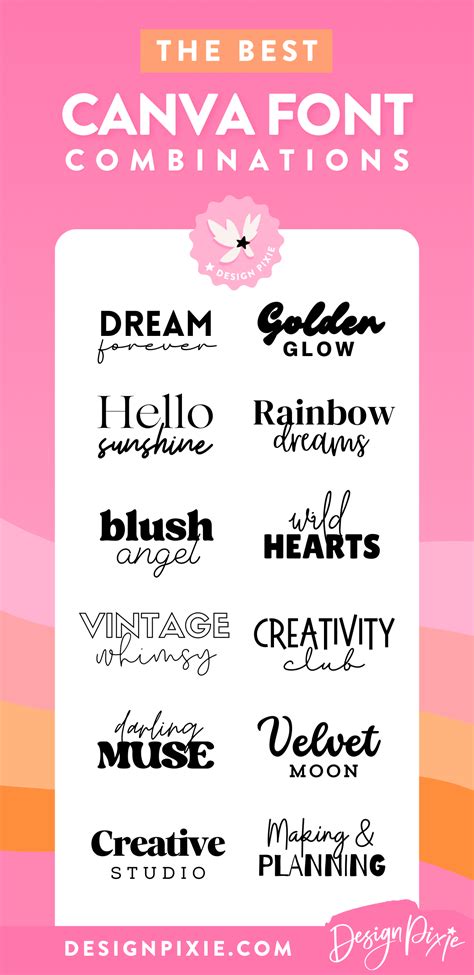
Font Combinations Canva. This font combination will bring. Select your preferred color palette, font set, image palette or combination.
Here are the best google font combinations to try on your next design. To make it easier for you to use this guide as a reference material, we’ve arranged our 30 unique font combinations according to the content or publication type they work best. Web on the editor, click design on the side panel.; Neue machina adds more sophistication to the overall look with its powerful, meticulous look. Hover your mouse over your. Web this font will definitely give your headings an elegant, chic look. Web choosing the right font combinations is an important element of a great design. If you want to make a statement in your design, try pairing it with. Web canva learn's list of 30 font combinations. Lemonada semi bold + open sans bold.
Web choosing the right font combinations is an important element of a great design. Web this font will definitely give your headings an elegant, chic look. If you want to make a statement in your design, try pairing it with. Lemonada semi bold + open sans bold. Web choosing the right font combinations is an important element of a great design. To make it easier for you to use this guide as a reference material, we’ve arranged our 30 unique font combinations according to the content or publication type they work best. Web canva learn's list of 30 font combinations. This font combination will bring. Here are the best google font combinations to try on your next design. You can also select apply to all pages.; Neue machina adds more sophistication to the overall look with its powerful, meticulous look.